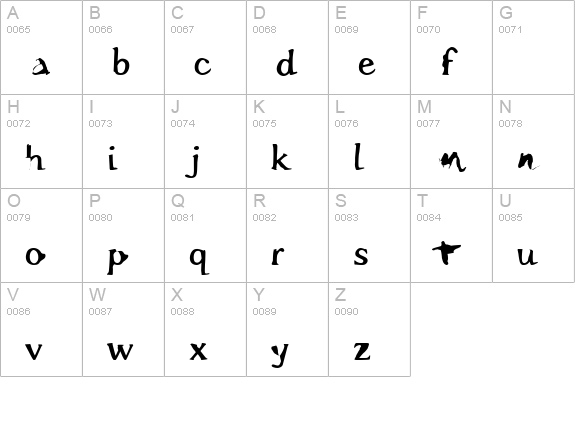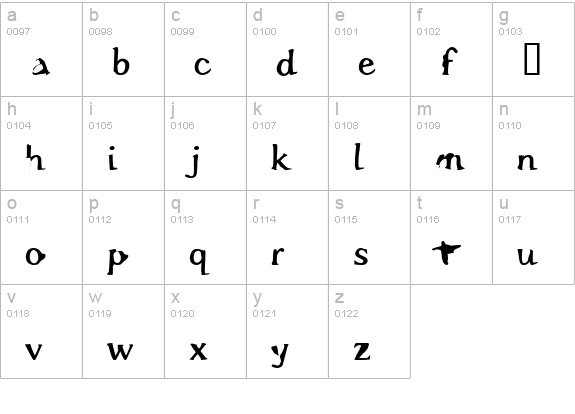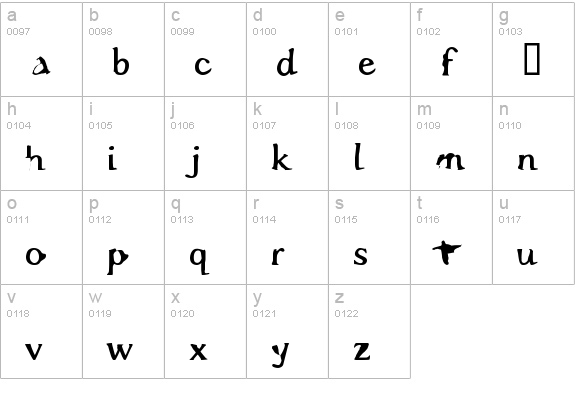
Condemnation Font Details
Condemnation font is a bold and edgy typeface that exudes a sense of power and strength. Its sharp angles and striking design make a bold statement, perfect for headlines, posters, and branding projects. This versatile font is sure to make your designs stand out from the crowd with its unique and modern aesthetic. And the best part? Condemnation font is completely free to download at FontsMarket.com. Whether you're a designer looking to add a touch of boldness to your projects or a business owner in need of a striking font for your branding, Condemnation font is the perfect choice. Don't miss out on the opportunity to elevate your designs with this eye-catching and powerful typeface. Download Condemnation font today and make a bold statement with your next project.